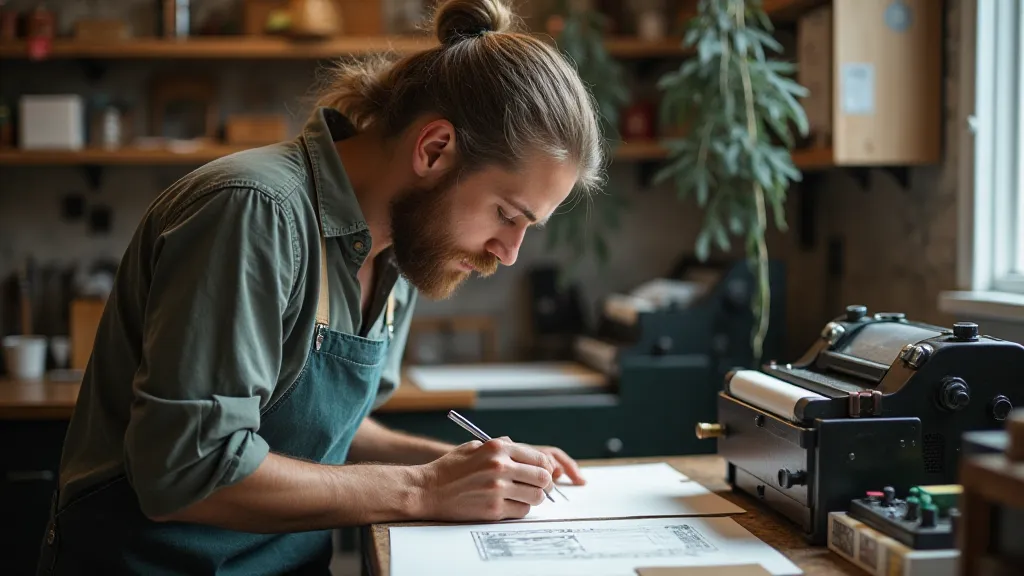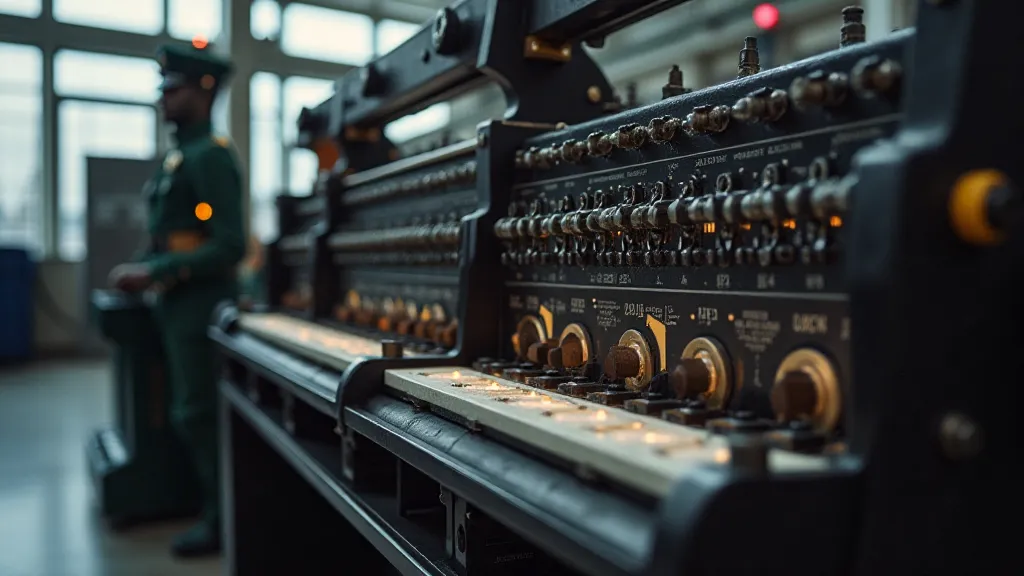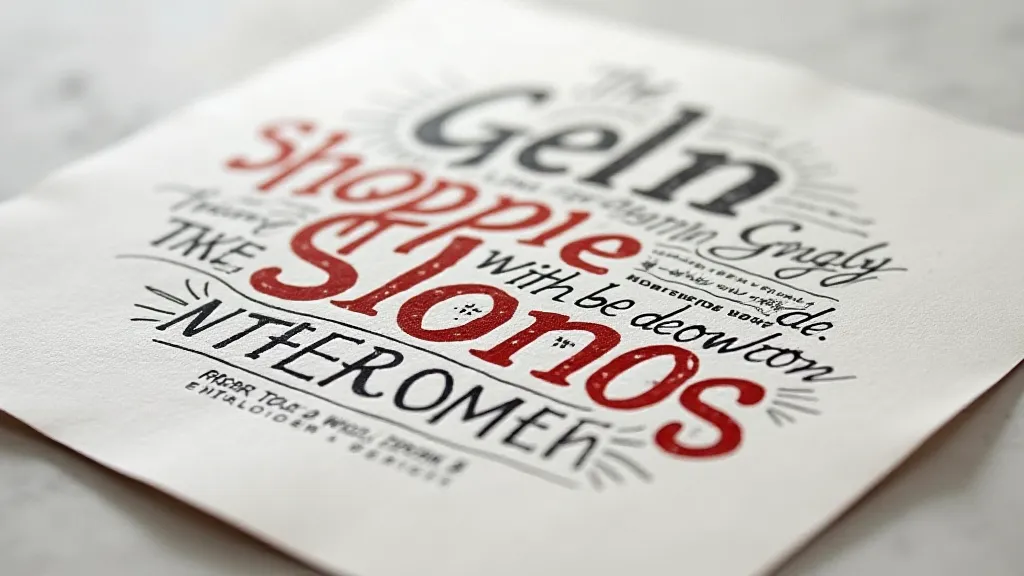
The Future of Letterpress: Innovations and Trends
Letterpress printing, a technique steeped in history, might seem an unlikely candidate for a vibrant future. However, far from fading into obsolescence, letterpress is experiencing a quiet resurgence, fueled by a desire for tangible, handcrafted goods and a renewed appreciation for the imperfections that define its unique charm. But this isn’t simply a nostalgic revival; the future of letterpress is being shaped by exciting innovations, a growing focus on sustainability, and boundless creative possibilities. The allure of this tactile printing process stems from its ability to create an almost three-dimensional impression on the paper, something digital printing simply can't replicate.
Technological Advancements & Hybrid Approaches
While the core principles of letterpress remain rooted in traditional methods, technology is subtly transforming the craft. We're seeing increased use of computer-aided design (CAD) software to create intricate designs, making the process of creating bespoke printing plates more accessible. Laser engraving, for instance, allows for far greater detail and precision in plate creation compared to older manual techniques. This precision also contributes to the artistry of choosing the right paper—a critical aspect of a successful letterpress project.
Furthermore, hybrid approaches are gaining traction. Some printers are incorporating elements of digital printing—like variable data printing for personalized projects—with letterpress to expand possibilities and meet specific client needs. This allows for combining the luxurious feel of letterpress with the practicality of digital customization. For those looking to delve deeper into the intricacies of paper selection and its impact on the final product, exploring resources focused on the art of choosing paper for letterpress printing can be incredibly valuable. Understanding paper weight, texture, and fiber content significantly influences the impression and overall quality of a letterpress piece.
Sustainability Takes Center Stage
The increasing consumer awareness of environmental impact is also influencing the future of letterpress. Historically, letterpress has relied on certain materials with environmental concerns. Now, there’s a growing demand for sustainable alternatives:
- Eco-Friendly Inks: Soy-based, vegetable-based, and water-based inks are becoming increasingly popular, reducing reliance on petroleum-based options.
- Recycled & Tree-Free Paper: Printers are actively sourcing recycled papers and exploring alternatives like cotton rag, hemp, and even bark paper. The move towards tree-free alternatives aligns perfectly with the desire to create lasting pieces—a cornerstone of the letterpress philosophy.
- Responsible Plate Making: Efforts are being made to reduce waste in the plate-making process and explore more sustainable materials for plate creation.
The beauty of letterpress is its ability to create something lasting. Choosing sustainable materials reinforces that lasting quality with a clear conscience. This commitment to environmental responsibility is not just a trend; it's a fundamental shift in how letterpress businesses operate and appeal to environmentally conscious clients. The rising demand for eco-friendly practices highlights how a commitment to sustainability can actually strengthen a letterpress business’s appeal—something we’re seeing reflected in articles discussing the eco-friendly appeal of letterpress printing. The future printer must be both artisan and environmental steward.
Design Trends: Beyond the Classic
While classic typography and elegant layouts remain popular in letterpress, designers are pushing the boundaries of what's possible. We’re seeing:
- Bold & Experimental Typography: Layered fonts, unconventional spacing, and unexpected letterforms are adding a modern edge to letterpress projects. The physicality of letterpress encourages experimentation – what might look flat on a screen can have a dramatic impact under the press.
- Texture & Relief: Printers are experimenting with different plate depths and techniques to create highly tactile and textured prints. This goes beyond just the impression to incorporate unique surface qualities.
- Mixed Media Integration: Combining letterpress with other materials—like hand-lettered elements, embroidery, or even wood – is opening up exciting new creative avenues. This blending of traditional craft with modern design creates truly unique and personalized pieces.
The resurgence of letterpress isn’t just about replicating vintage designs; it's about adapting those principles to contemporary aesthetics. This often involves pushing the limits of what's technically possible with the press, demanding a high level of skill and creativity from the printer. Clients seeking something truly special are increasingly drawn to the bespoke nature of letterpress, wanting pieces that reflect their individual style and values. The ability to create custom invitations and stationery, imbued with a handcrafted feel, is a particularly popular application – something couples often explore when planning their wedding celebrations. Many are finding inspiration and advice through articles detailing letterpress printing for weddings.
The Enduring Appeal & the Future Artisan
The future of letterpress isn's about abandoning its heritage, but about building upon it. The rising interest in handcrafted goods and a desire for authentic experiences demonstrates a continued demand for the unique qualities that letterpress provides. This means a bright future for artisans willing to embrace both tradition and innovation. The role of the letterpress artisan is evolving. It's no longer just about mastering the technical aspects of the press; it's about understanding design principles, client needs, and the broader context of the craft.
The next generation of letterpress printers will not only be skilled craftspeople but also designers, problem-solvers, and entrepreneurs, shaping the future of this timeless art form. They’re tasked with finding a balance between honoring the tradition of letterpress and adapting to new technologies and design trends. This also extends to the vital upkeep of the machinery that makes it all possible. For those interested in understanding how to maintain these complex machines and keep the art of letterpress alive for future generations, resources focused on preserving letterpress equipment offer valuable insights and practical guidance.
The resurgence of letterpress demonstrates a broader cultural shift towards valuing craftsmanship, authenticity, and tangible experiences. In a world dominated by digital communication, the ability to create something beautiful and lasting with one’s own hands is a powerful and appealing concept. This trend is likely to continue, fueled by a desire for connection, creativity, and a rejection of mass-produced goods.